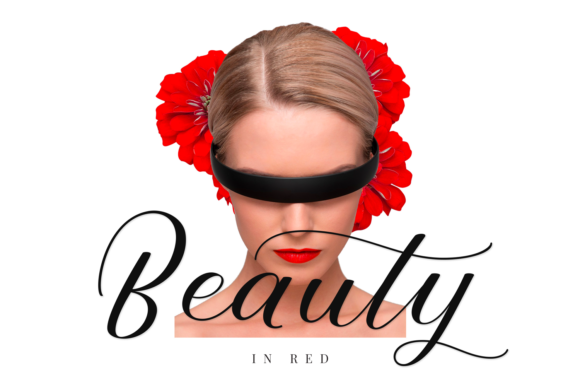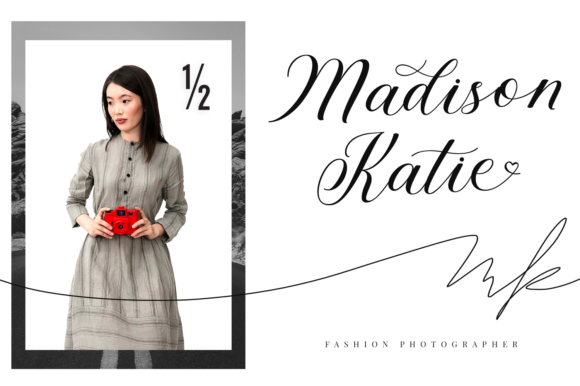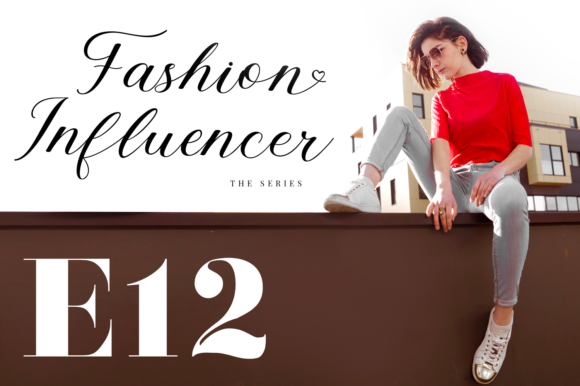
About Vedacity Font
Vedacity is a delicate and elegant handwritten font. Its distinct and well balanced letters make this font a masterpiece. Fall in love with its incredibly versatile style and use it to create spectacular designs!